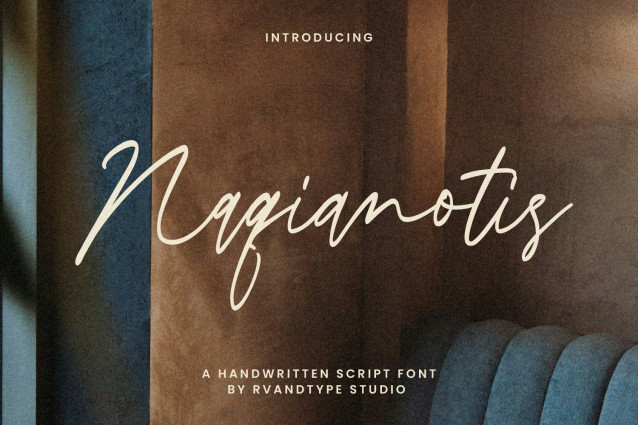
Naqianotis Script Font
Naqianotis Script Font is an elegant handwritten script font that captures the beauty of natural handwriting with smooth, flowing strokes. Its delicate yet confident character design brings a sense of sophistication and warmth, making it versatile for both personal and professional projects.